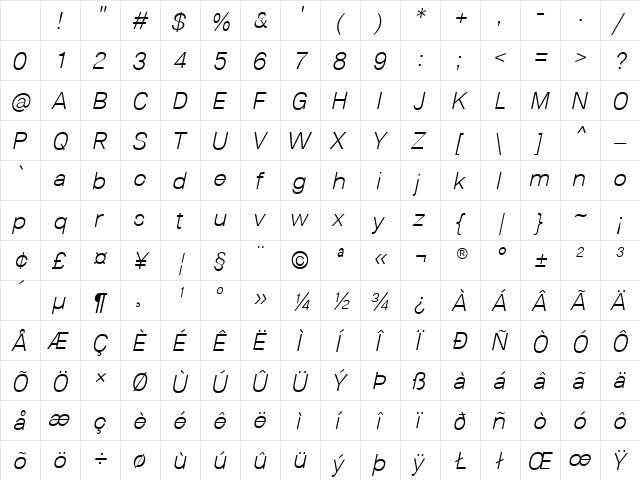
Complete Lunchtype23 Light Italic glyph index. Displaying only characters natively supported by Lunchtype23 Light Italic font.
Lunchtype23 is a composed and adaptable typeface that performs quietly and consistently across a wide range of design contexts. The slanted form adds forward momentum and visual energy. Its slender proportions lend an understated elegance to any composition.
Pro Tip: Use Lunchtype23 for emphasis, pull quotes, and subheadings where its slanted energy can add rhythm to the layout.